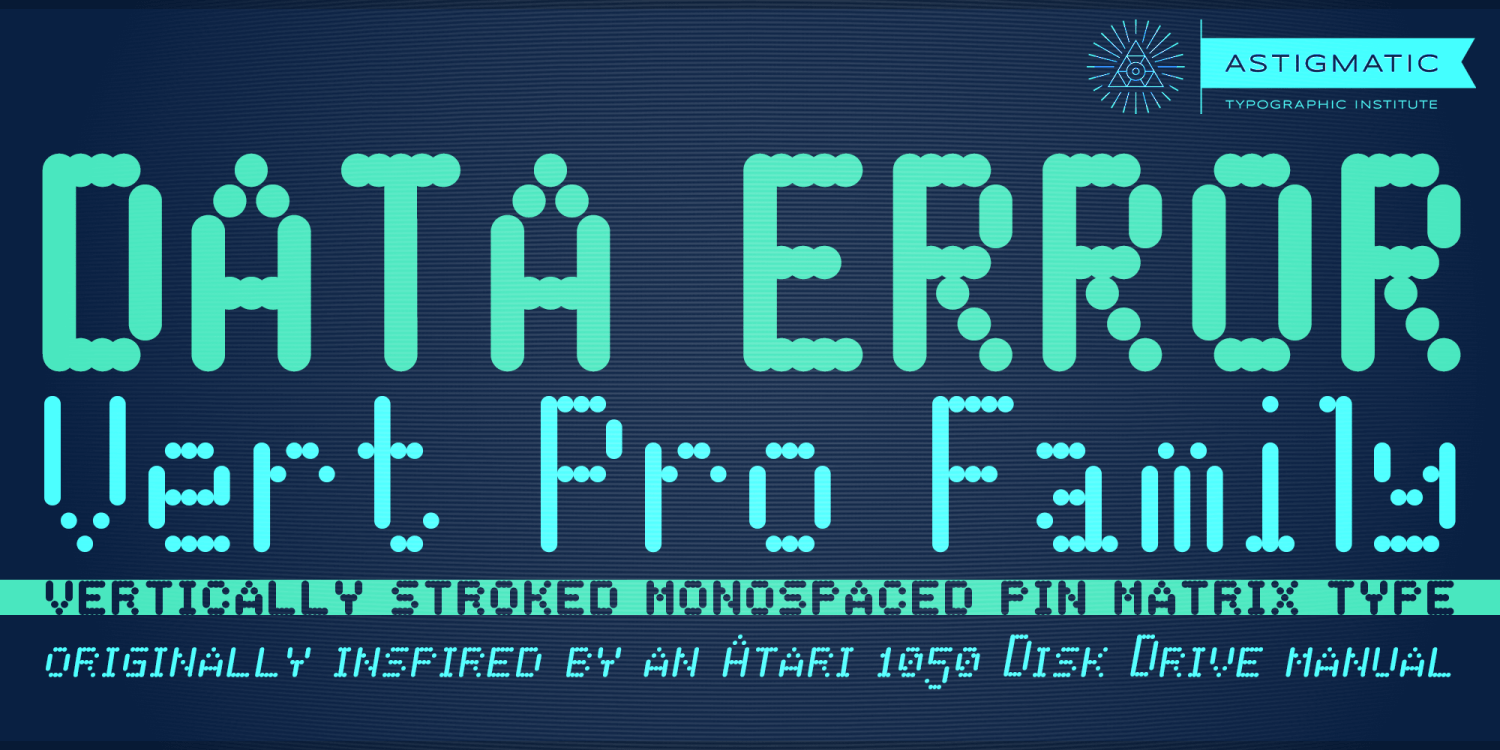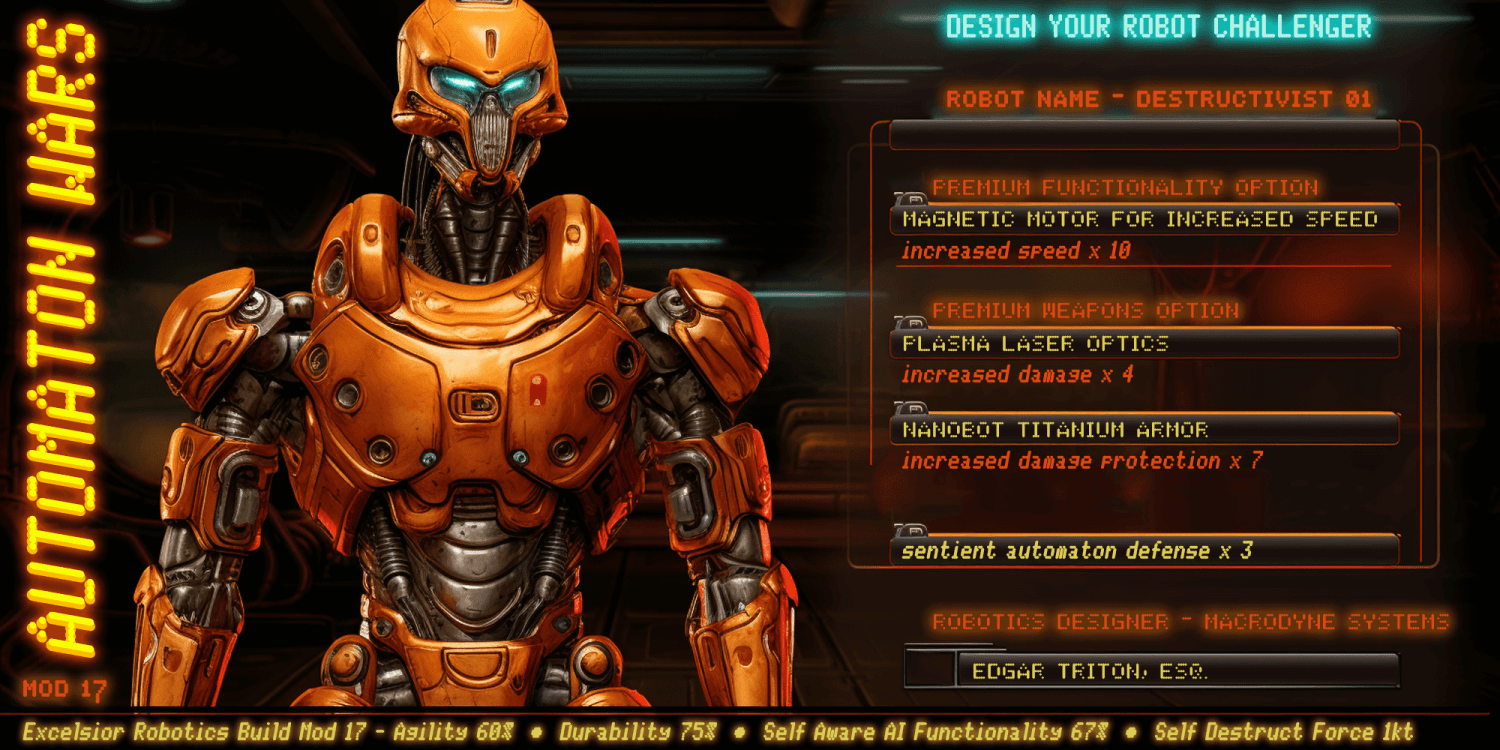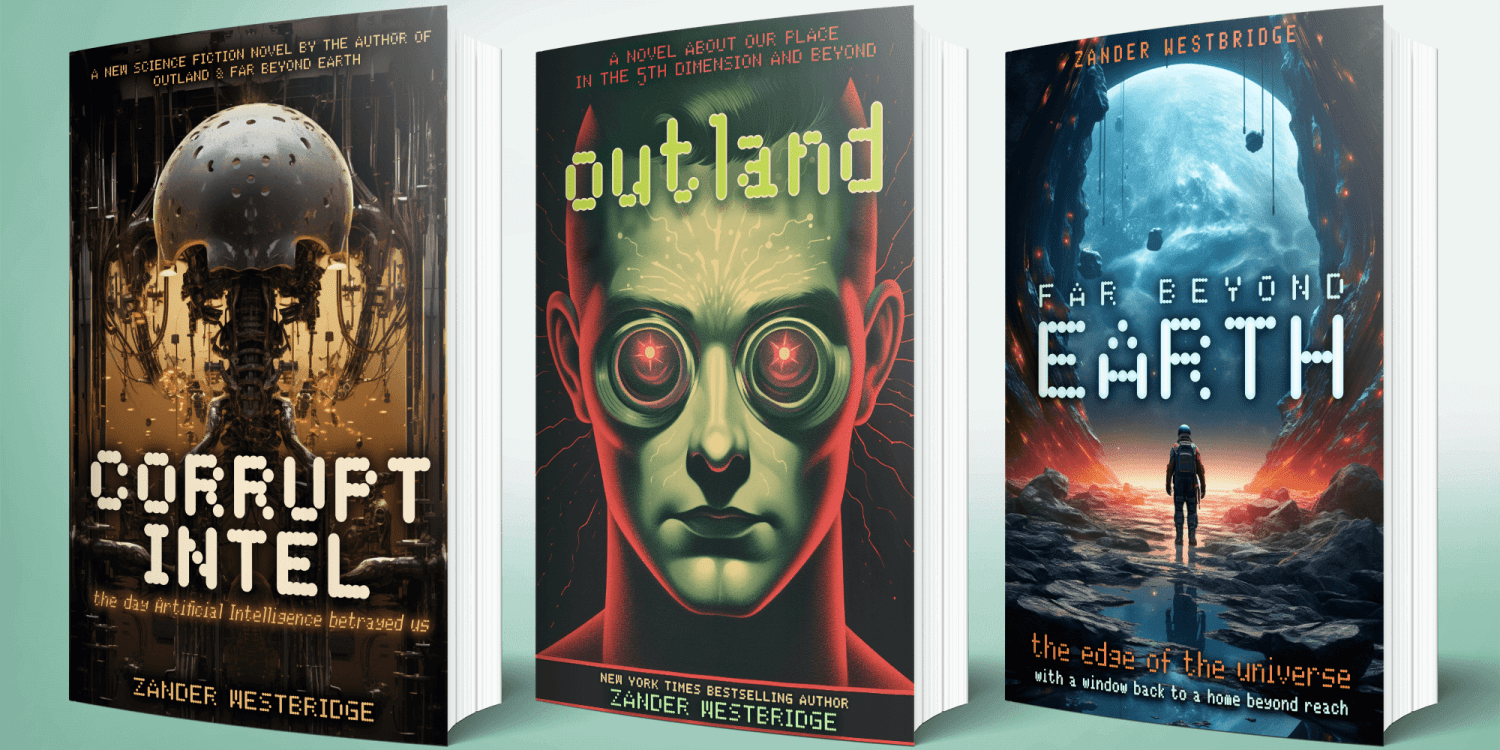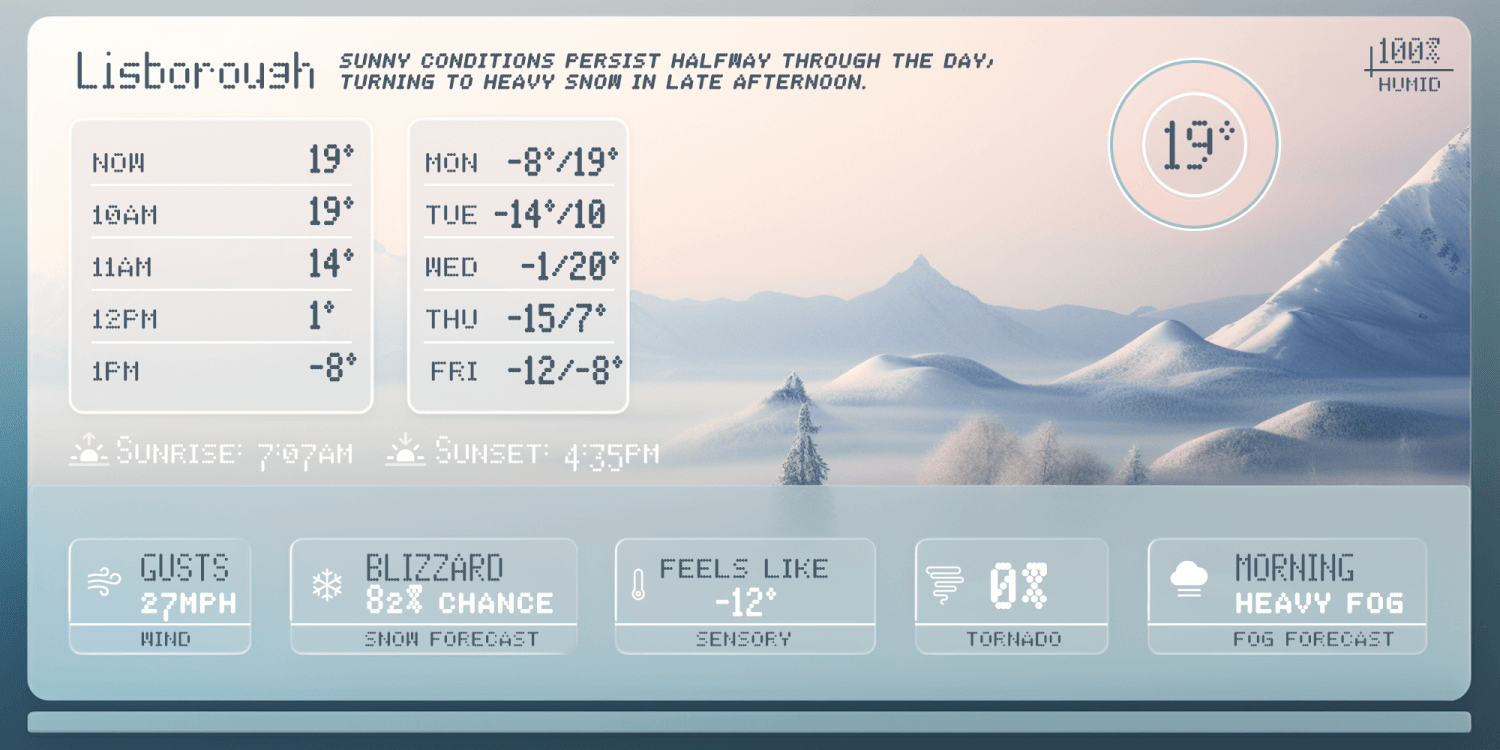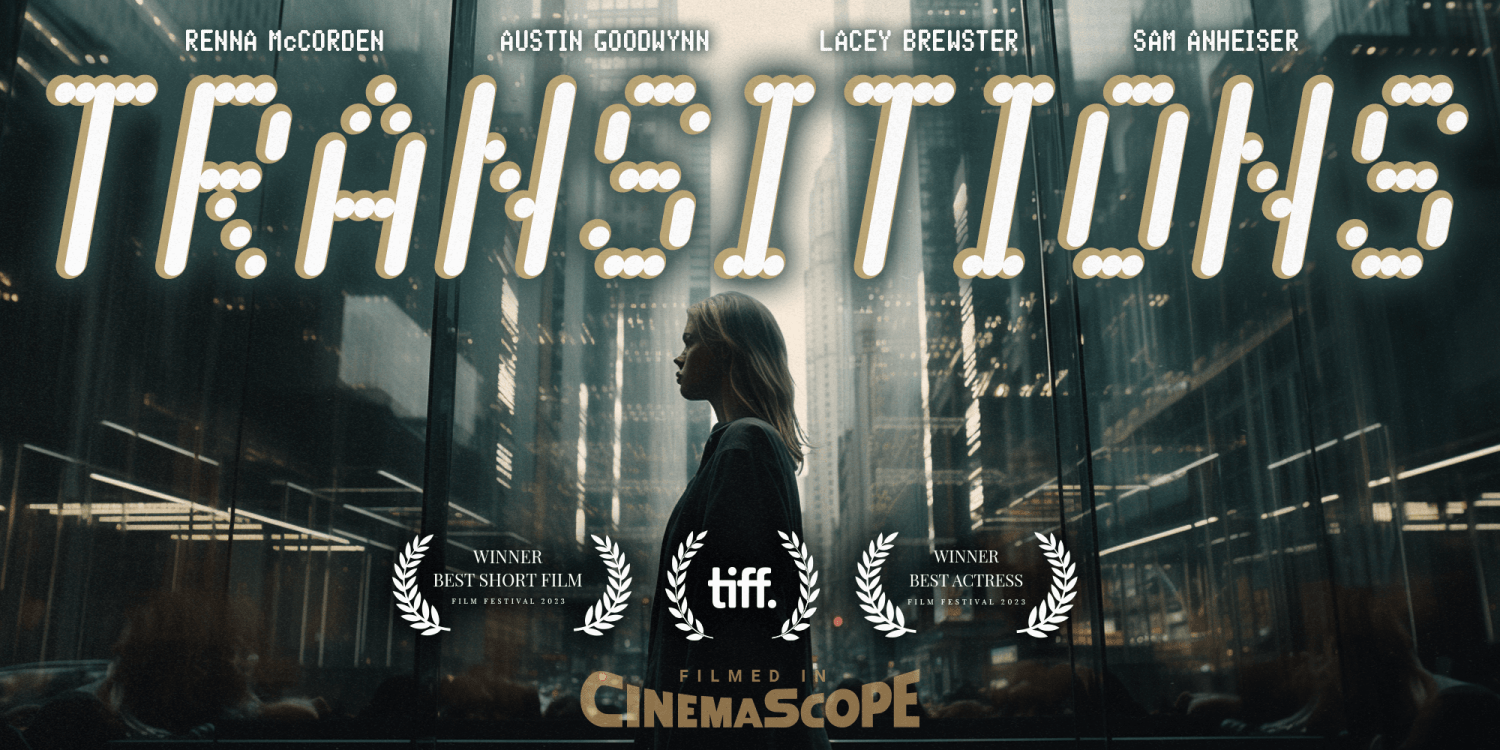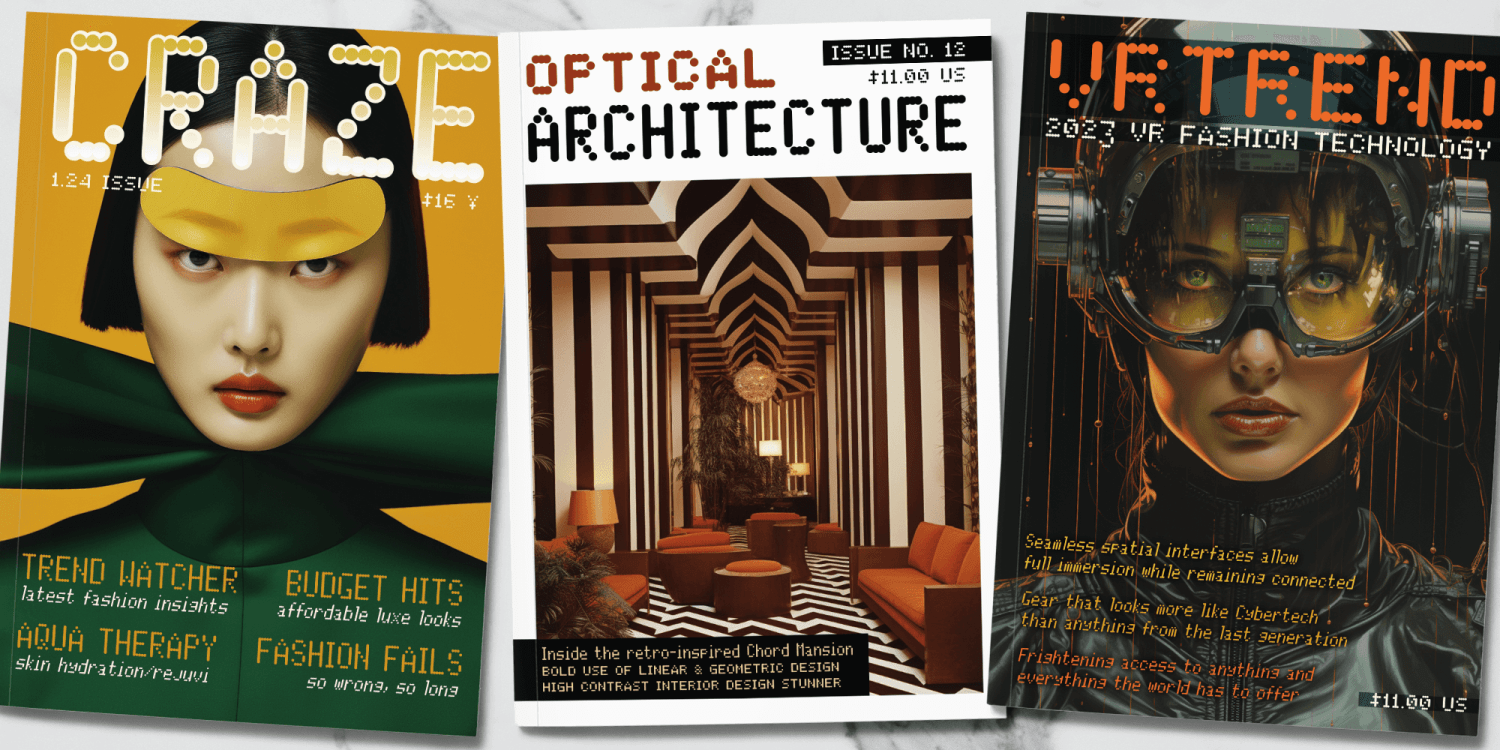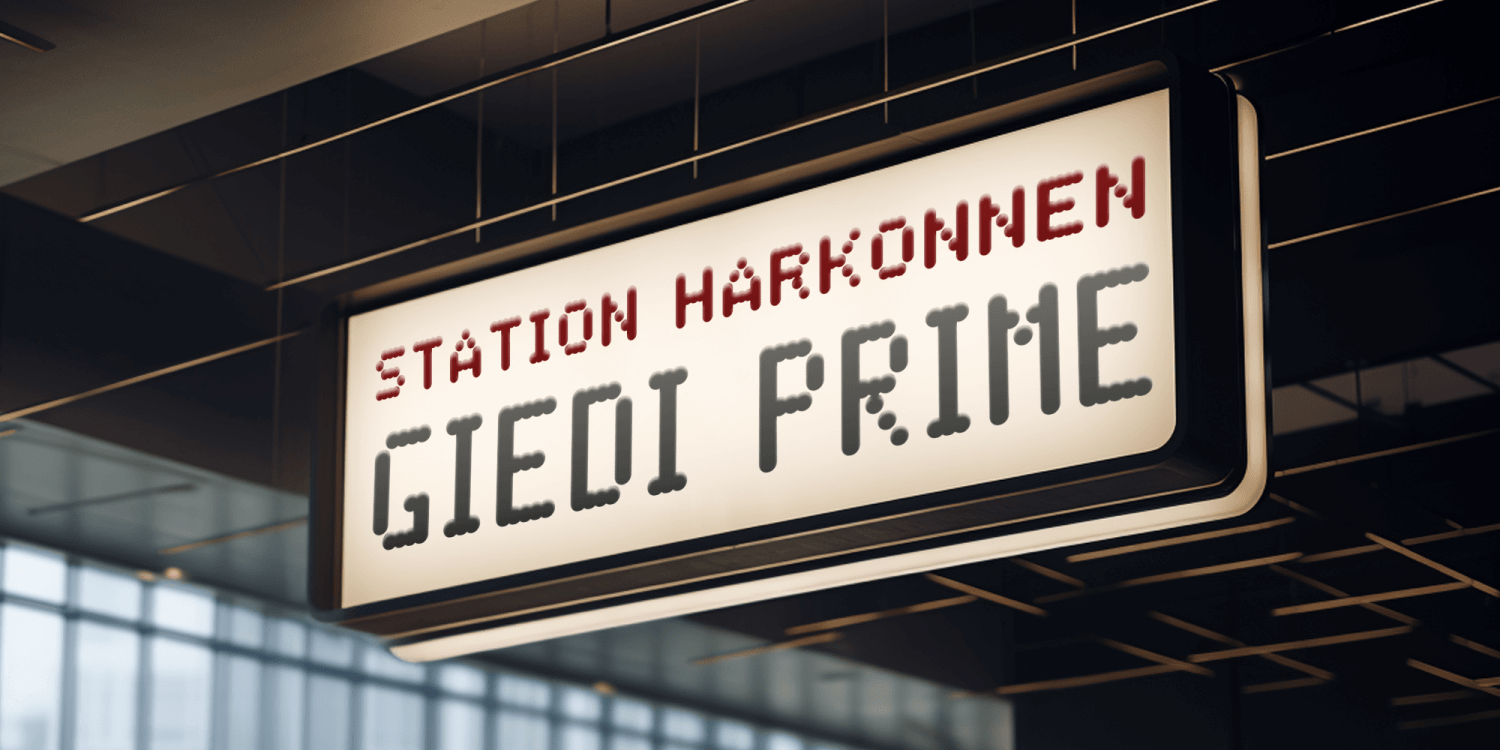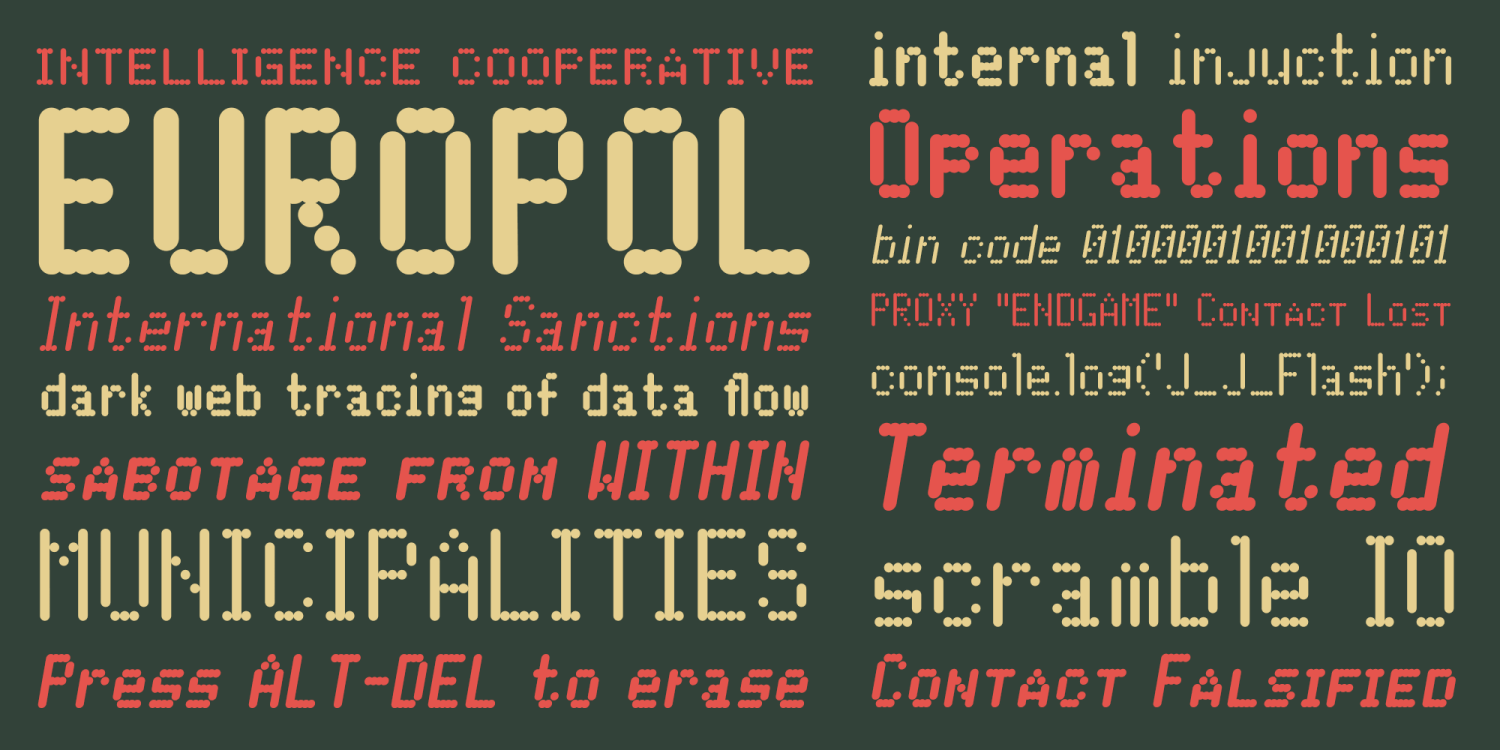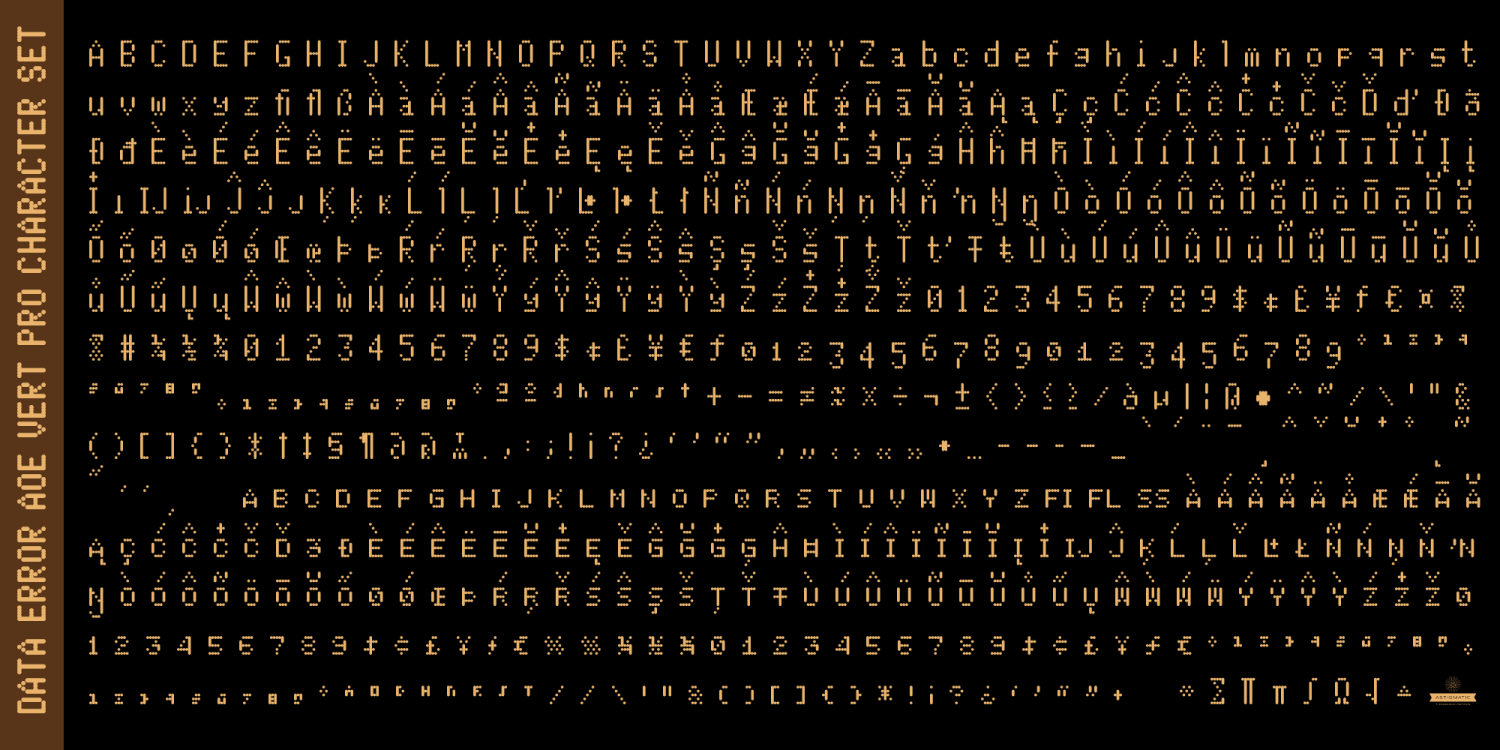
Data Error Vert AOE Pro
The Data Error Vert AOE Pro family is a spinoff of my Data Error AOE Pro family. Quite simply, it takes on a slightly different feel than the original pin matrix grid by stroking across all vertical glyph lines. The vertical lines break up the readability somewhat of the original grid and lend a more tech vibe to the family.
Check out the range of posters created to see the various Capitals, Lowercase, smallcaps and varying styles that the family has to offer and how it both differs from and compliments the original Data Error AOE Pro family.